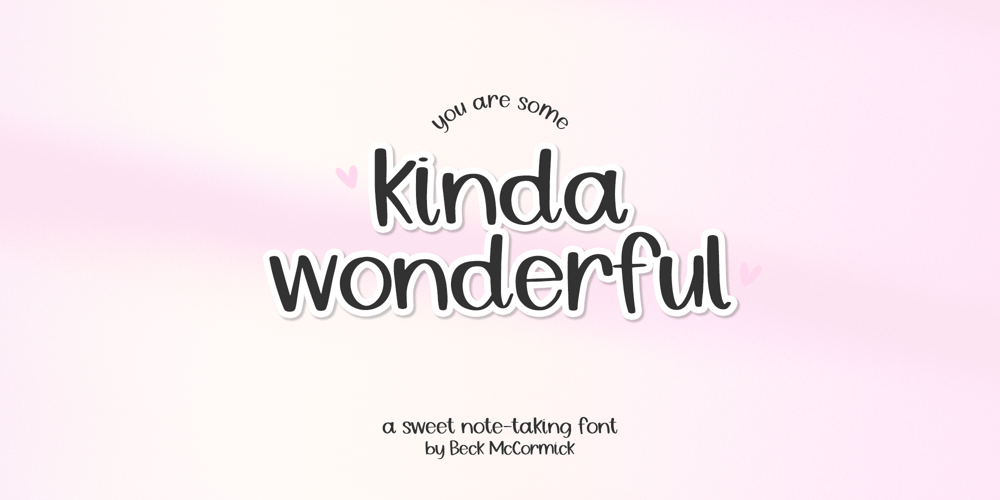
Kinda Wonderful Sans
Kinda Wonderful Sans font
Kinda Wonderful Sans Font Family was designed by Beck McCormick and published by BeckMcCormick. Kinda Wonderful Sans contains 1 styles and family package options. Kinda Wonderful Sans is a hand lettered font. It’s neat & tidy appearance makes it the perfect fit for your digital planner or note-taking app. It’ll also be a perfect fit for your cute home decor projects, your Cricut machine, logo & branding projects, marketing materials, social media graphics, & more. Kinda Wonderful Sans includes:- full upper + lowercase characters- numbers + punctuation- PUA-encodingExtensive Language Support:Western European, Central European, South Eastern European, South American, Oceanian, Vietnamese, EsperantoKinda Wonderful can be used with graphic design programs such as Illustrator or Photoshop, word processing programs like Pages or Word, Design Space, Silhouette, Procreate, Canva Pro, Glowforge, GoodNotes, & more. This font is an installable for desktop & laptop machines, as well as iPads or iPhones. See below for links to help with installation.